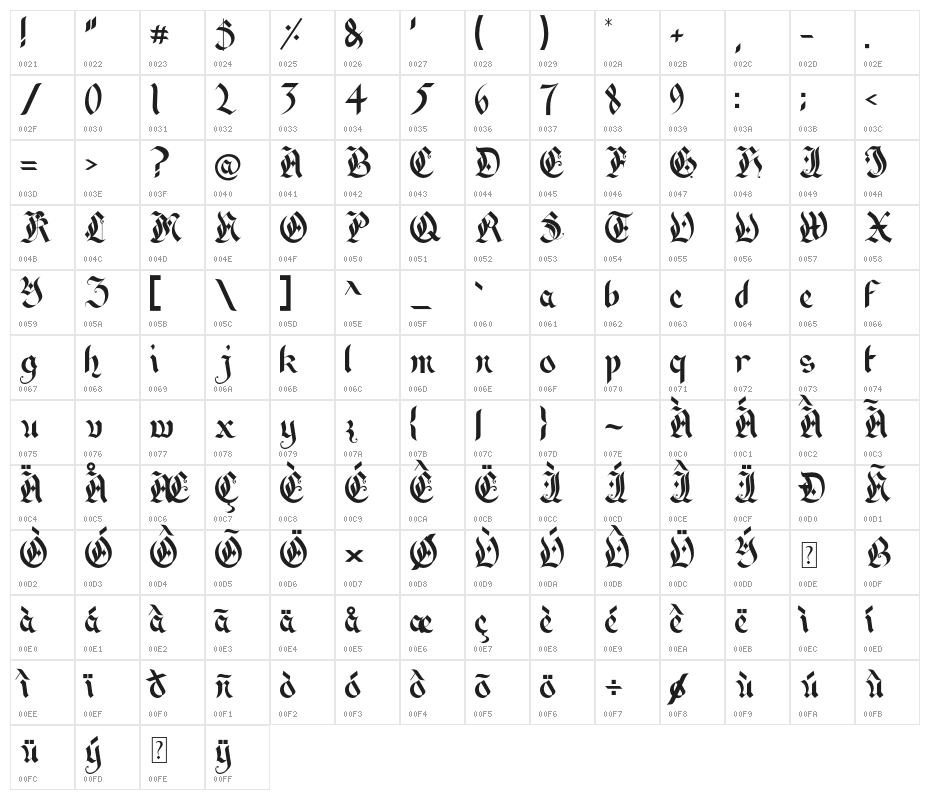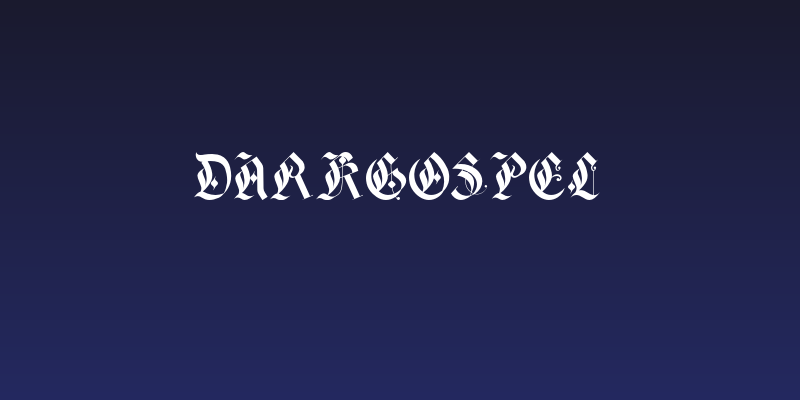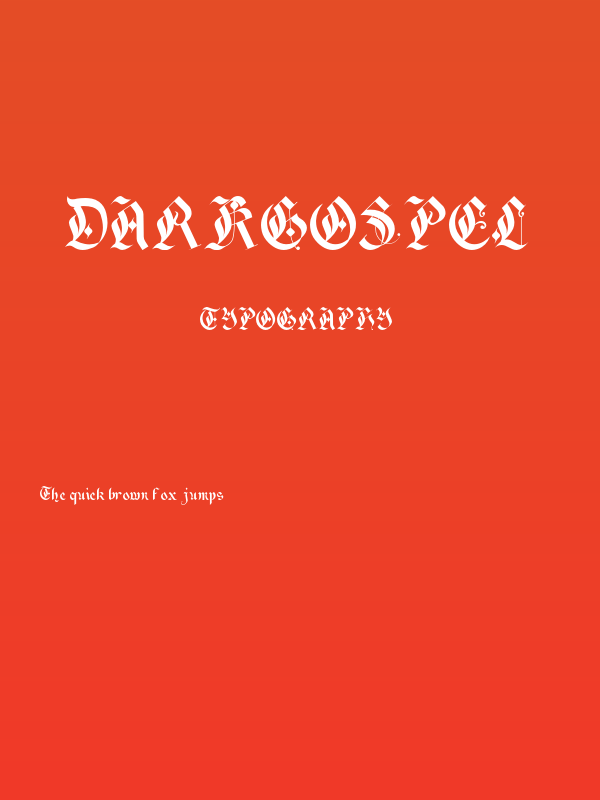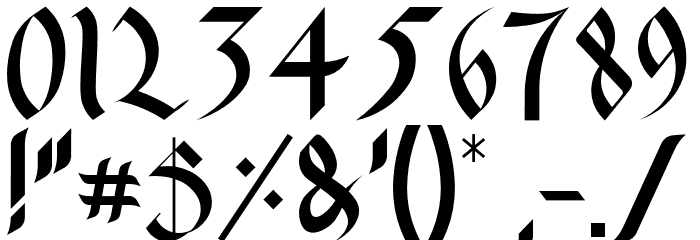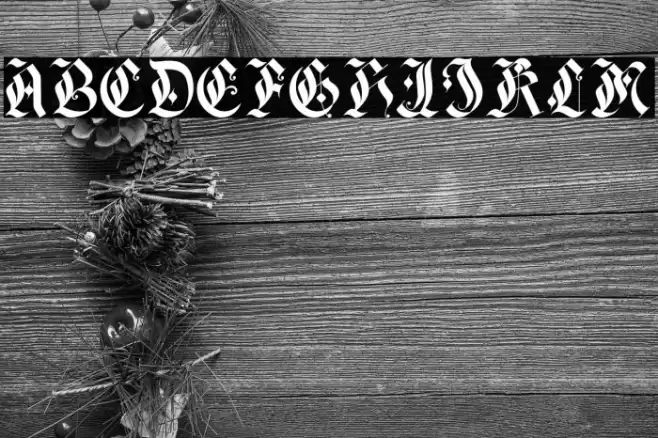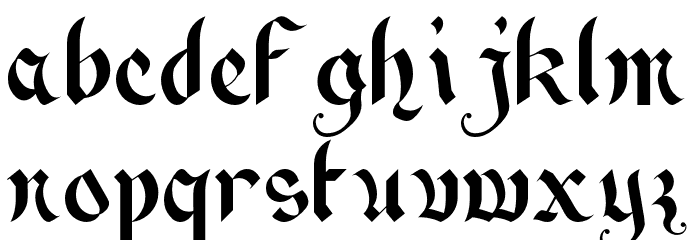
DarkGospel Font
| Progetti proposti | Ideal for historical-themed designs, book covers, posters, and branding that requires a dramatic or medieval touch. |